Incredible Font Websites Free Ideas
Incredible Font Websites Free Ideas. Web top 10 best free font sites to use in 2021 1. Web 100% free—beautiful typeface collection—sans, serif, script, rust, display & cyrillic—enjoy our work—download fonts @ fontfabric.com today.
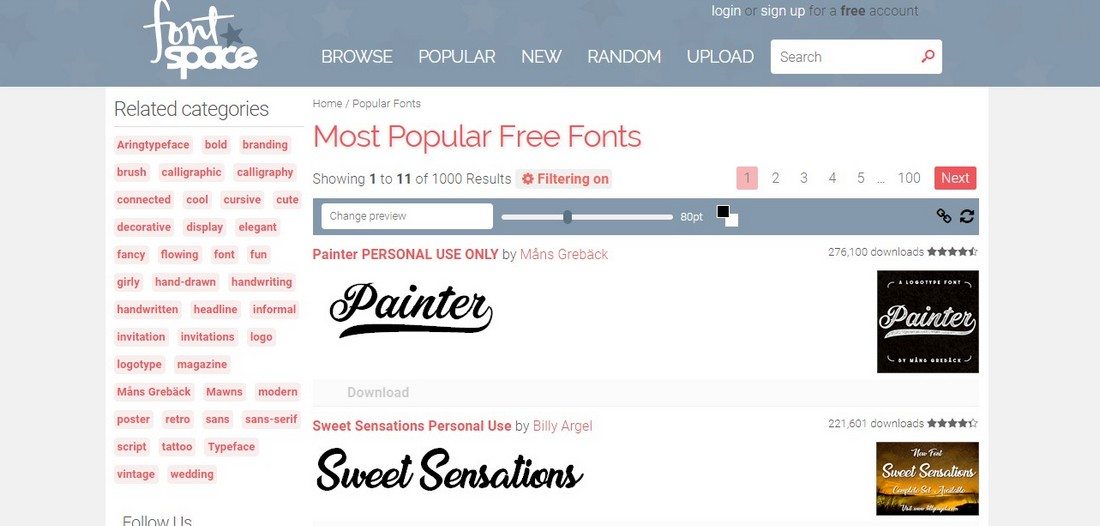
Each font is reviewed by a fontspace moderator, checked for font quality. Web fontstruct is a free tool for creating fonts. The league of moveable type.
What To Look For In A Font Aggregator.
Click to find the best 231 free fonts in the website style. Google has been offering the software and programs which every user wants for their projects and work. The fonts available on google fonts.
This Font Is The Perfect Choice For Websites.
With 1043 free licensed font families available, google fonts is one of the largest collections of fonts available online. Web the fonts presented on this website are their authors' property, and are either freeware, shareware, demo versions or public domain. Browse categories such as calligraphy, handwriting, script, serif and more.
Each font is reviewed by a fontspace moderator, checked for font quality. Web fontstruct is a free tool for creating fonts. This massive library features over 800 font families of various types, from.
You Can Also Pick From.
Web here is a list of websites offering free commercial fonts. Web google fonts is one of the first sites that come up on top when searching for free fonts. You can narrow down your preference.